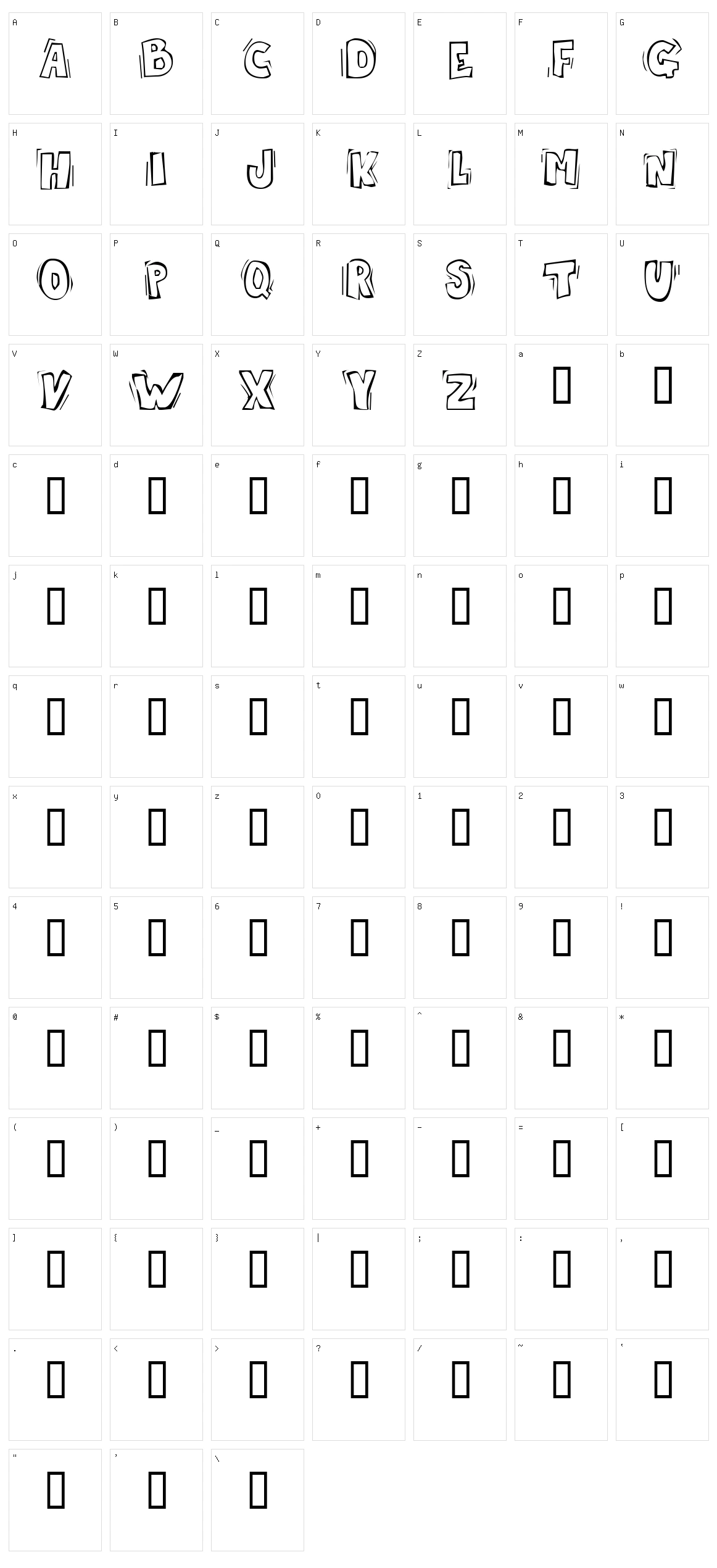
The free font Skrotfont is carefully designed by MillaN, showcasing a thoughtful balance of creativity and usability and falls under the Cartoon font style. When you download the ZIP file, it contains only 9.83 KB of font files, making it lightweight and quick to download. Please review the license details below to understand permitted usage and distribution rights. If license information is not available, we recommend using this font for personal projects only or contacting the author directly for commercial usage permissions.
- - - T H E S K R O T F O N T - - -